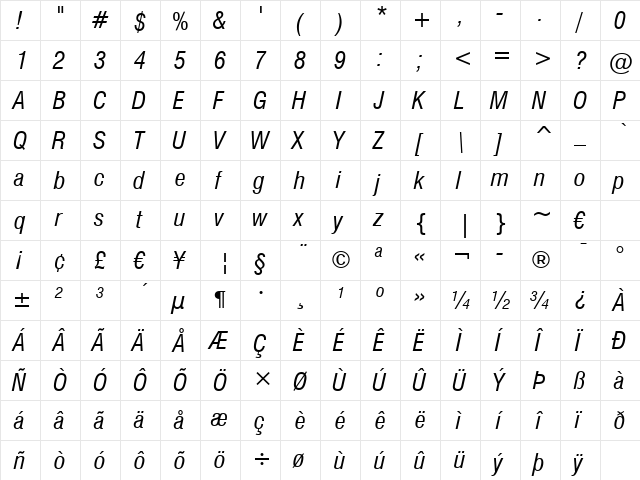
Swis721 Cn BT Italic
Design Context for Swis721 Cn BT Typeface
Swis721 Cn BT takes a measured approach to typography — its balanced proportions and neutral character make it a reliable workhorse for both digital and print work. Its italic angle brings a sense of urgency and motion to the letterforms.